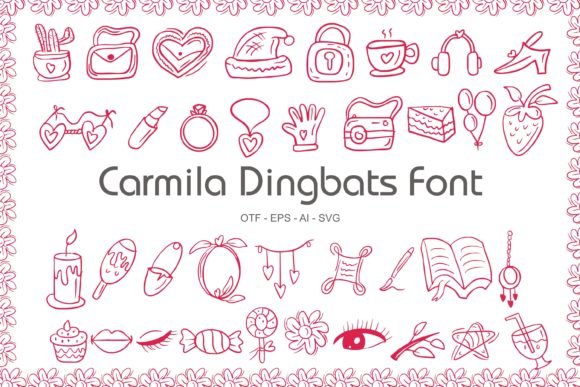
Introduction to Carmila Dingbats Font
Carmila Dingbats is a cool, creative and useful dingbats font.
Key Features of Carmila Dingbats Font
Why Choose Carmila Dingbats Font?
Carmila Dingbats Font offers exceptional quality and versatility, making it a valuable addition to your design toolkit. Whether you’re creating for personal projects or commercial use, Carmila Dingbats Font delivers professional results.